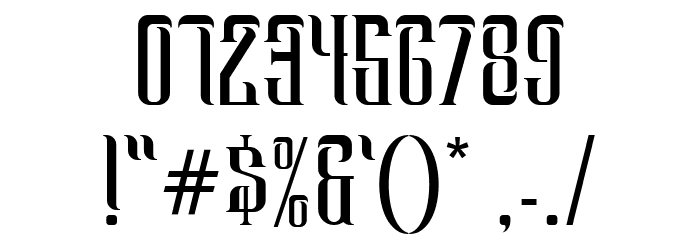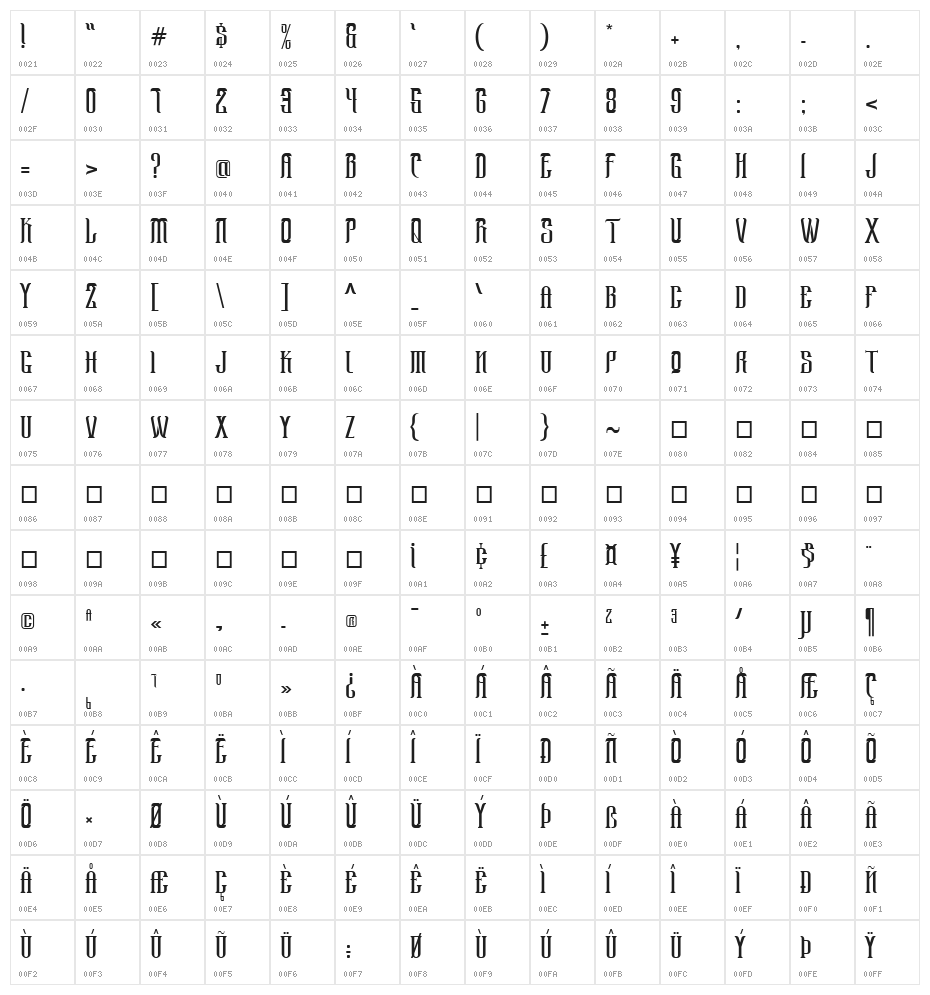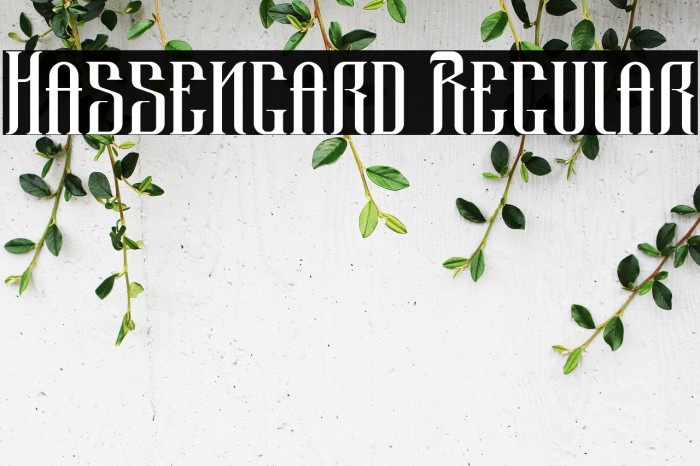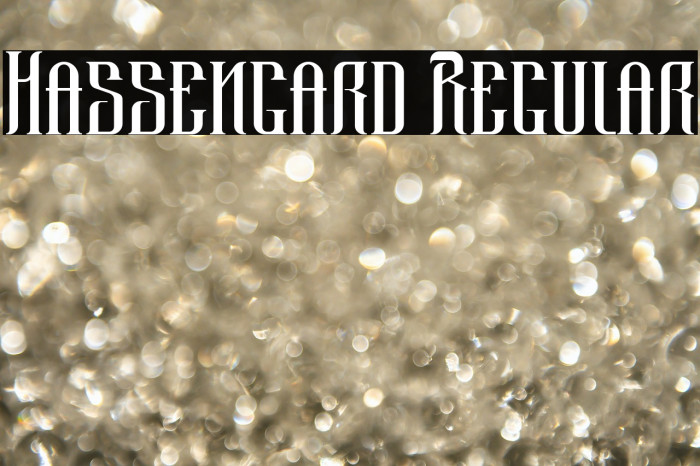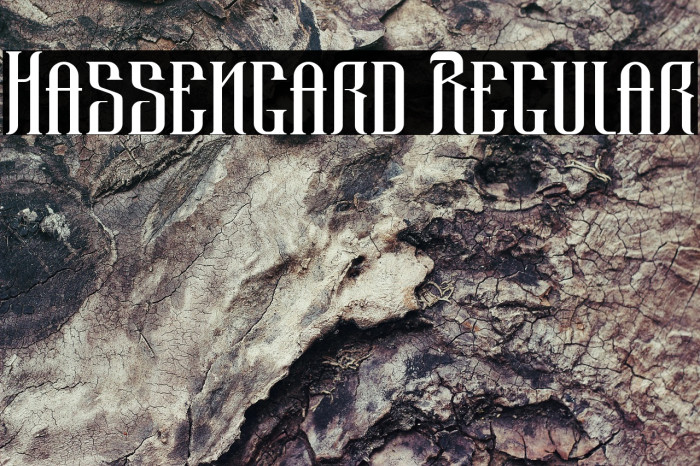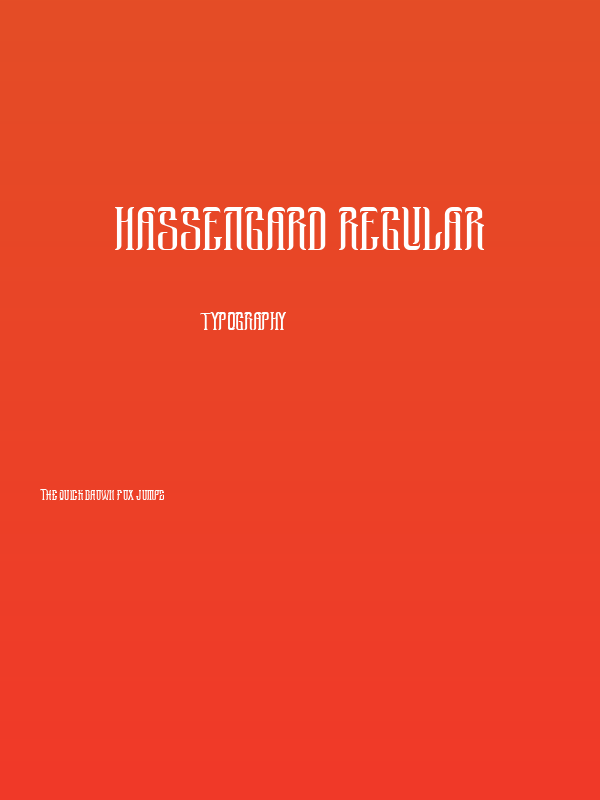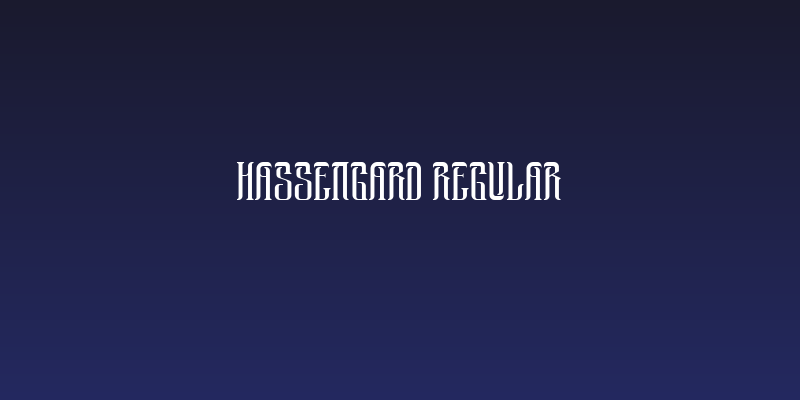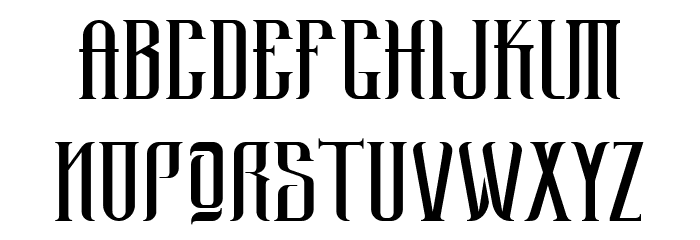
Hassengard Regular Font
Hassengard Regular Description
This font features a unique and striking design, characterized by its tall, narrow letterforms and sharp, angular serifs. The uppercase letters exhibit a strong vertical emphasis, with elongated strokes that give a sense of height and elegance. The lowercase letters maintain this verticality, creating a cohesive and unified appearance. The numbers and special characters are designed with the same attention to detail, ensuring consistency across all glyphs. The font's overall aesthetic is both modern and decorative, making it suitable for a variety of creative applications.
Overall StyleModern, Decorative
Proposed ProjectsIdeal for branding, poster design, and headlines where a bold, distinctive look is desired.